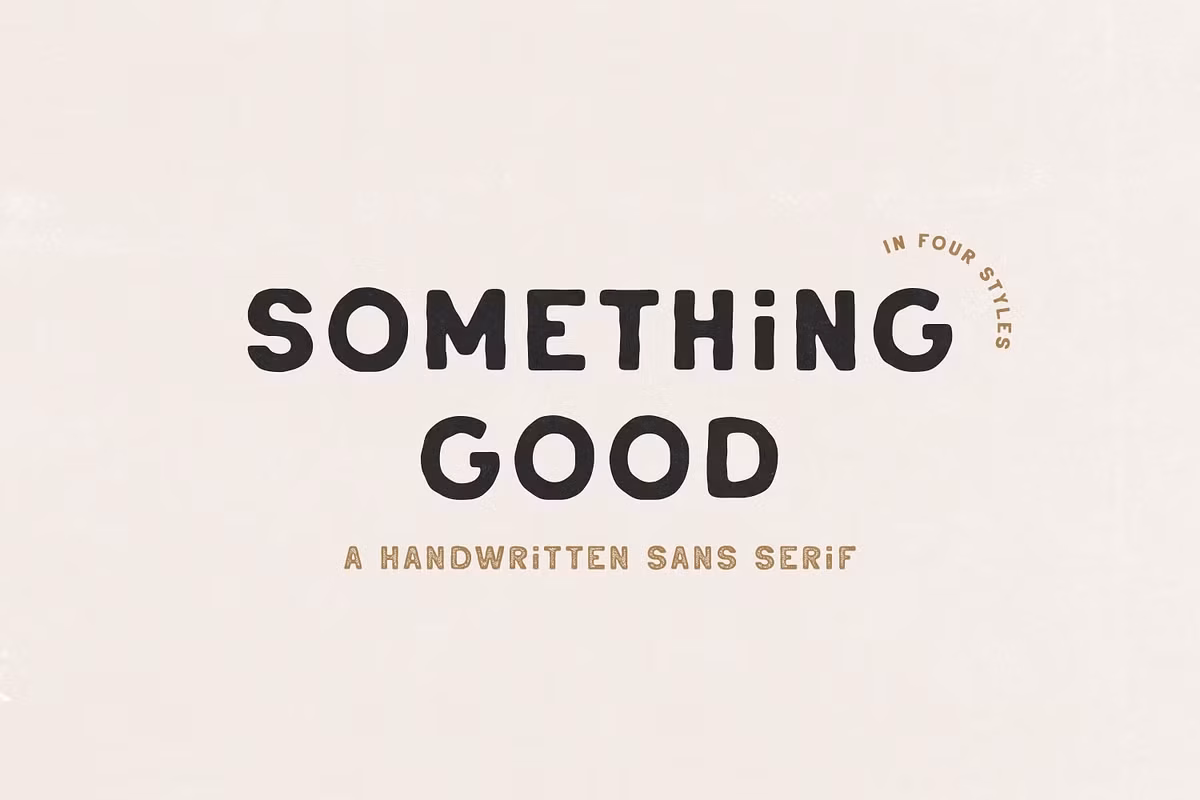
Something Good - Handwritten Sans Font Free Download is a friendly and modern typeface that brings a personal, feel-good touch to your designs. Please note: you must purchase this font for commercial use, but you can test it through a free download. With its casual sans-serif style and handwritten charm, Something Good is perfect for social media posts, branding, quotes, packaging, and lifestyle content.
This font radiates positivity and simplicity—making it ideal for creators who want their message to feel real, warm, and approachable. Whether you're designing a fun logo or crafting content for a blog or planner, Something Good - Handwritten Sans Font Free Download delivers clean readability with a human touch. It’s fully compatible with Adobe Illustrator, Photoshop, Canva, and other popular design tools. Download it now for personal use and add a little “something good” to every project with this effortlessly charming font.